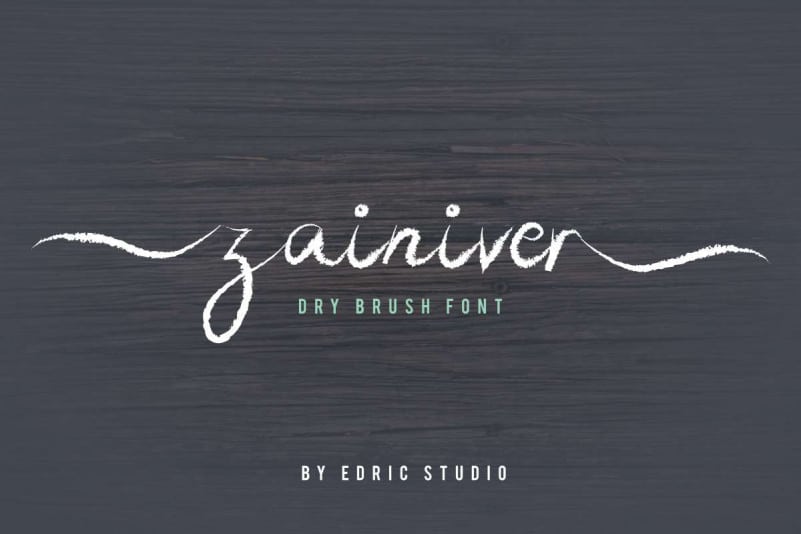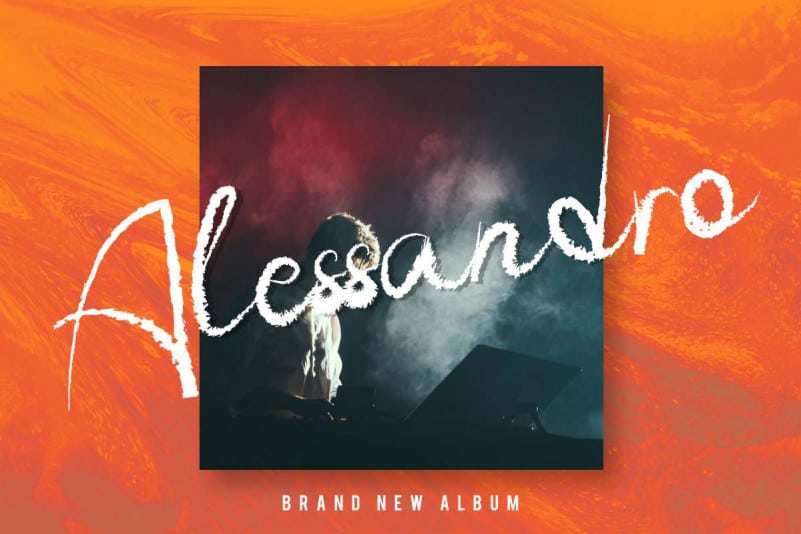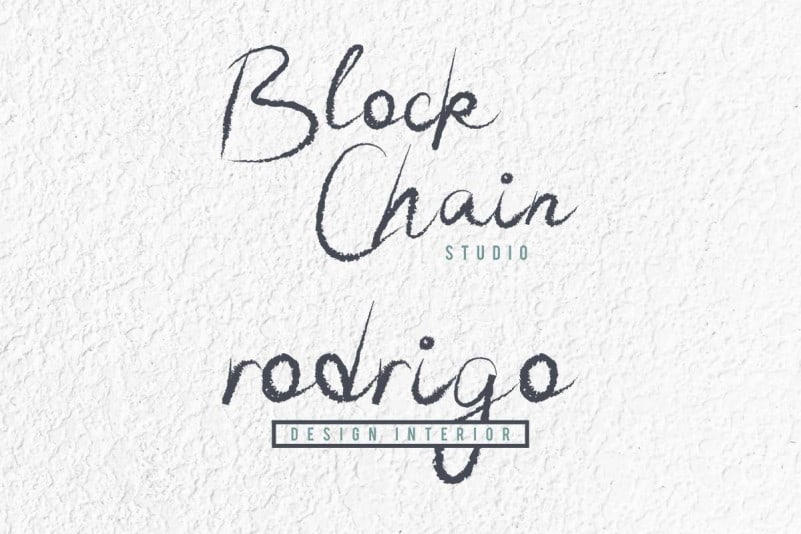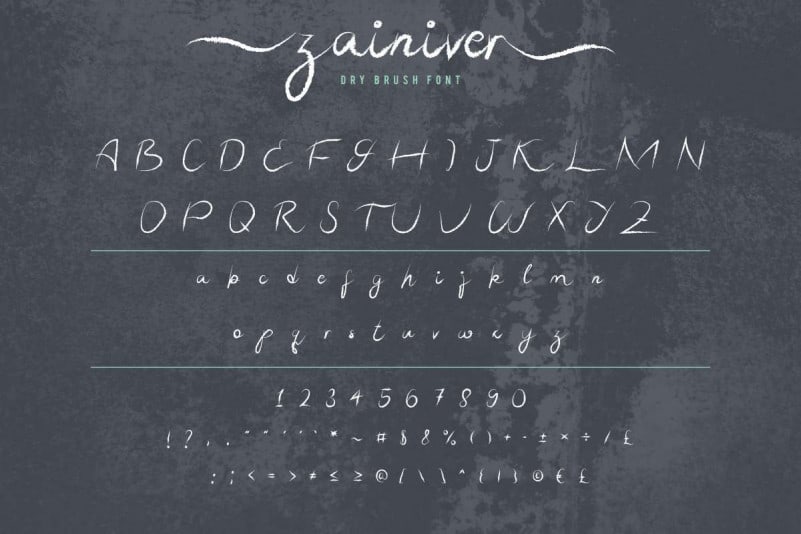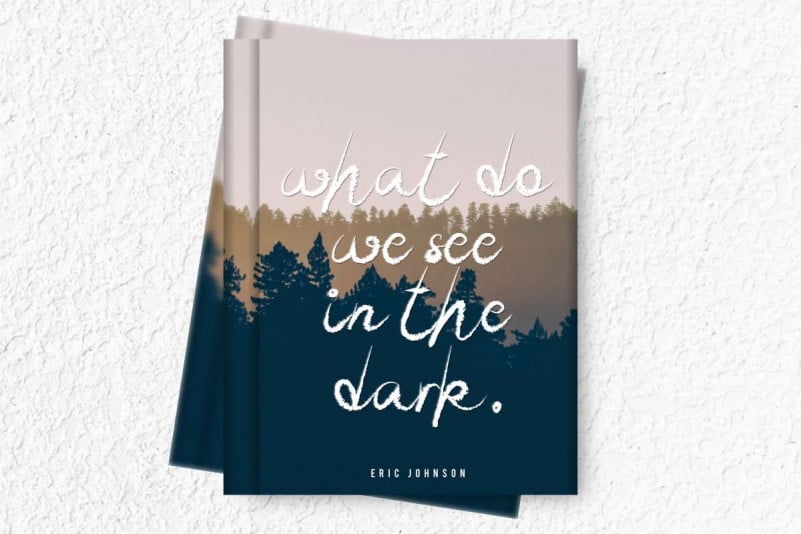
Zainiver Brush Font
Zainiver Brush Font is an exclusive unique textured script typeface with eyecathy style. This font has a stunning characters set, perfectly managed with well spaced and kerning. The theme style of this font will horror,  vintage, unique, misterious, rough, grunge and classic brush dry style.